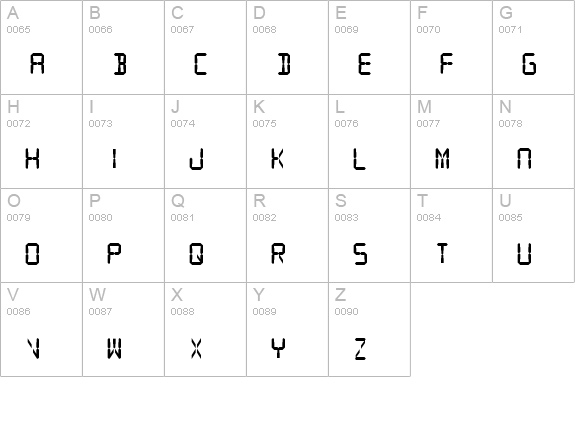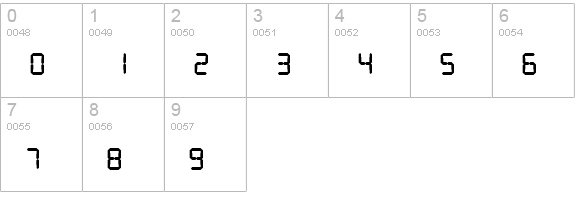
SF Digital Readout Heavy Font Details
SF Digital Readout Heavy is a heavy, high-impact variant in the SF typeface family \xE2\x80\x94 well suited to high-impact headlines, posters, and display advertising.
SF Digital Readout Heavy font is a sleek and futuristic typeface that is sure to catch the eye. Its bold and angular letterforms give it a powerful presence, making it perfect for projects that require a strong and modern aesthetic. Designed with clarity and legibility in mind, SF Digital Readout Heavy font is ideal for use in digital displays, signage, logos, and branding materials. Its clean lines and distinct style make it stand out from the crowd and grab attention. This font is freely available to download at FontsMarket.com, making it accessible to designers and creatives looking for a high-quality typeface without breaking the bank. With its generous availability, SF Digital Readout Heavy font opens up endless possibilities for both personal and commercial projects. Whether you're designing a website, creating a poster, or developing an app interface, SF Digital Readout Heavy font is a versatile choice that will add a touch of sophistication and modernity to your design. Its strong presence and bold letterforms make it perfect for headlines and titles, while its sleek and clean style ensures readability even at smaller sizes. With SF Digital Readout Heavy font, you can bring a touch of the future to your design projects. So why wait? Download this amazing font for free at FontsMarket.com and start creating eye-catching and impactful designs today.